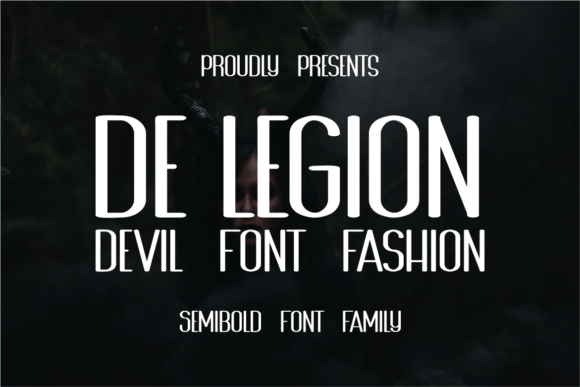
Behold De Legion Devil Font: A Dark, Stylish, and Cool Semibold Display Font
In the realm of typography, where letters dance and words ignite imagination, De Legion Devil Font emerges as a captivating masterpiece, a testament to the power of visual communication. Its dark, stylish, and cool semibold display nature beckons you to step into a world of creativity unbound, where your designs transcend the ordinary and capture hearts.
Discover the Allure of De Legion Devil Font
De Legion Devil Font, a creation of Monoletter, stands as a testament to the transformative power of typography. It possesses an innate ability to elevate the mundane, breathe life into the ordinary, and leave an indelible mark on the minds of your audience. Dive into the depths of its charm and experience the allure of a font that captivates and enchants.
A Versatile Canvas for Limitless Design
With De Legion Devil Font, versatility is not merely a concept; it's a reality woven into its very essence. Allow your imagination to soar as you explore the boundless possibilities it offers. Craft stunning logos that command attention, design posters that speak volumes, or create eye-catching social media graphics that resonate with your audience. Unleash your creativity and witness the transformative power of De Legion Devil Font.
Ignite Your Passion for Design
De Legion Devil Font is more than just a collection of characters; it's a gateway to a world of limitless creative expression. Its dark, stylish, and cool semibold display nature sets the stage for you to weave your design magic. Whether you're a seasoned designer or just starting your creative journey, De Legion Devil Font will ignite your passion and inspire you to produce masterpieces that leave a lasting impression.
Embrace the Power of Visual Communication
In a world saturated with visual stimuli, De Legion Devil Font emerges as a beacon of clarity and distinction. Its dark, stylish, and cool semibold display nature cuts through the noise, capturing attention and conveying messages with unmatched impact. Harness the power of De Legion Devil Font to create designs that resonate, designs that speak to the heart and leave an enduring legacy.